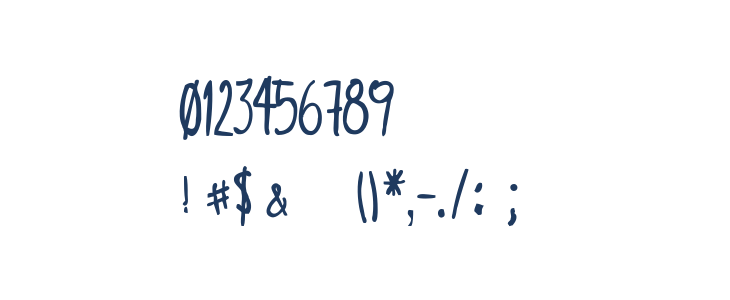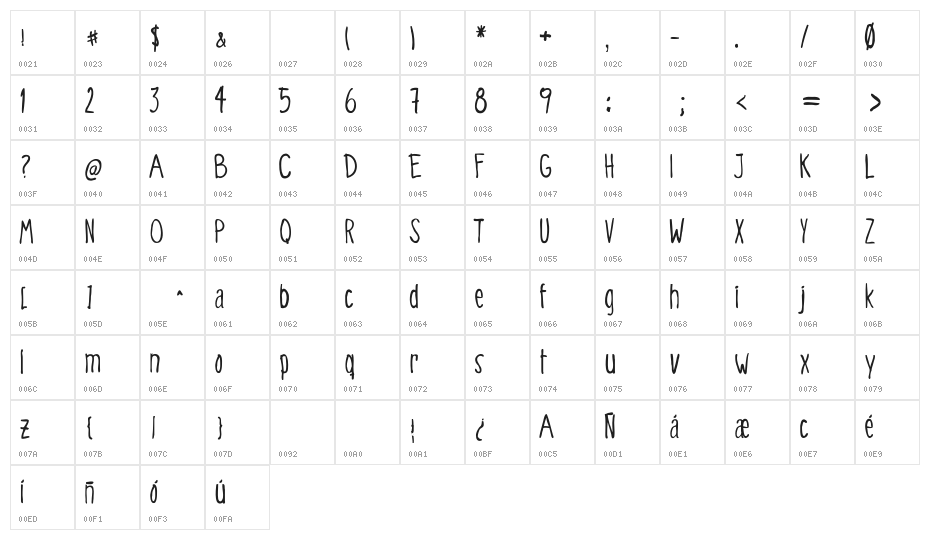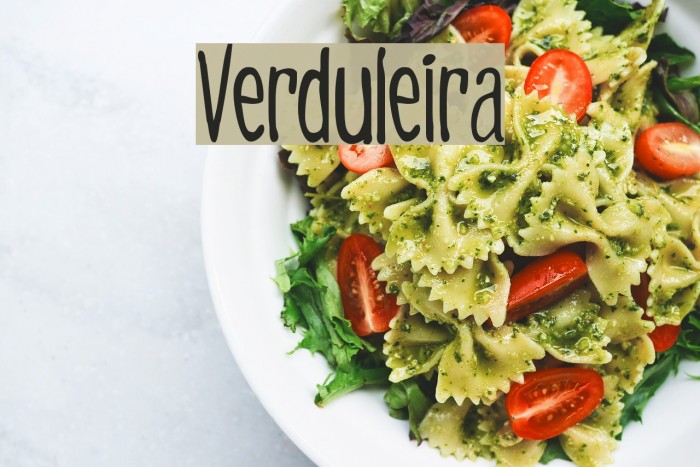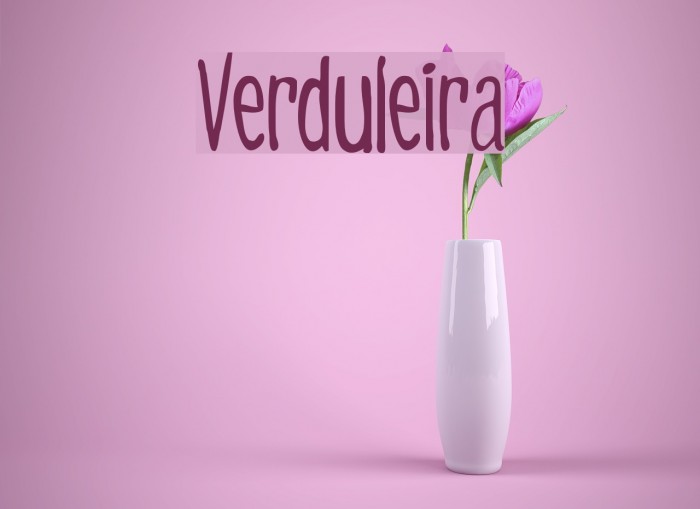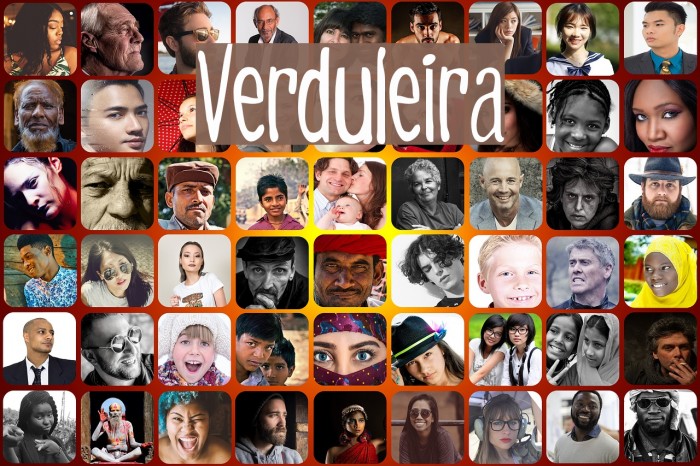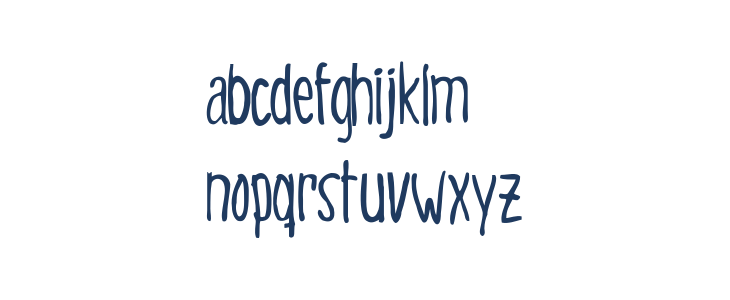
Verduleira Font
Verduleira Description
This font features a playful and informal handwritten style, characterized by its uneven strokes and slightly irregular letterforms. The uppercase and lowercase letters maintain a consistent flow, with rounded edges and a casual appearance. The numbers and special characters follow the same whimsical design, making it suitable for creative and lighthearted projects. The overall look is approachable and friendly, with a touch of spontaneity that adds personality to any text.
| Proposed Projects | Ideal for children's books, greeting cards, casual branding, and social media graphics. |